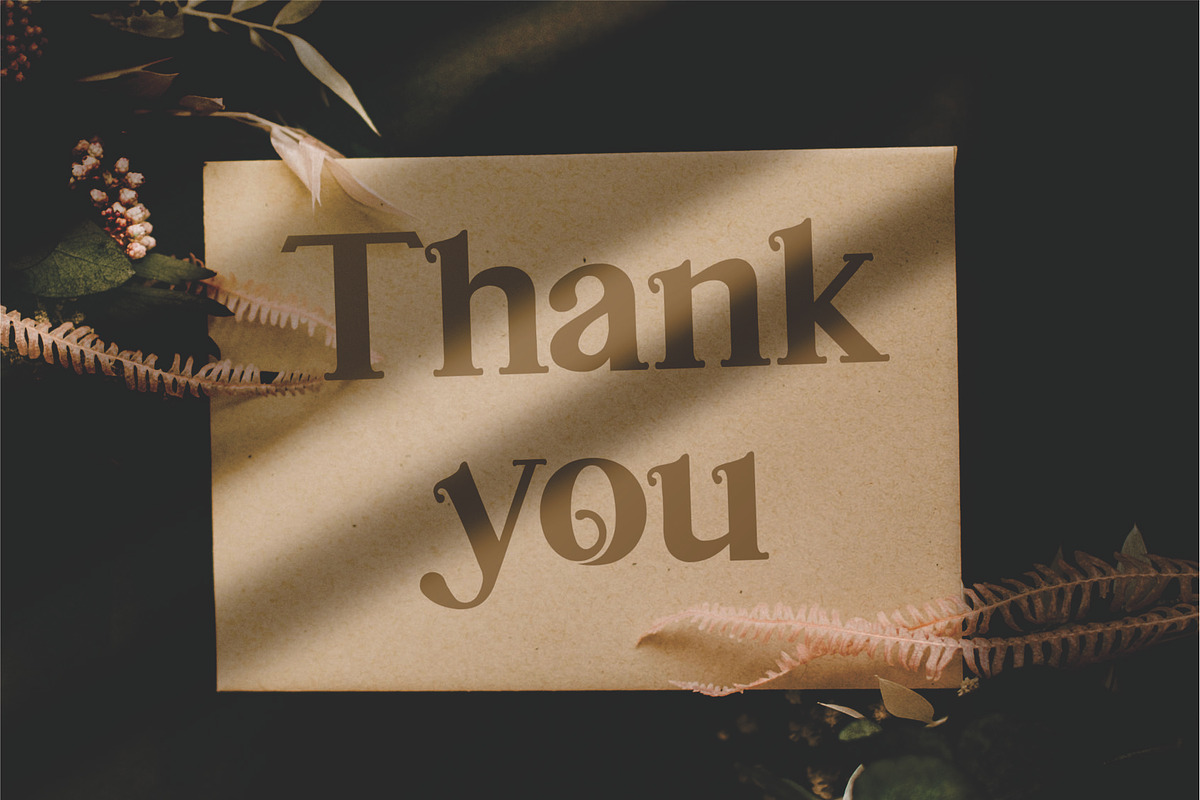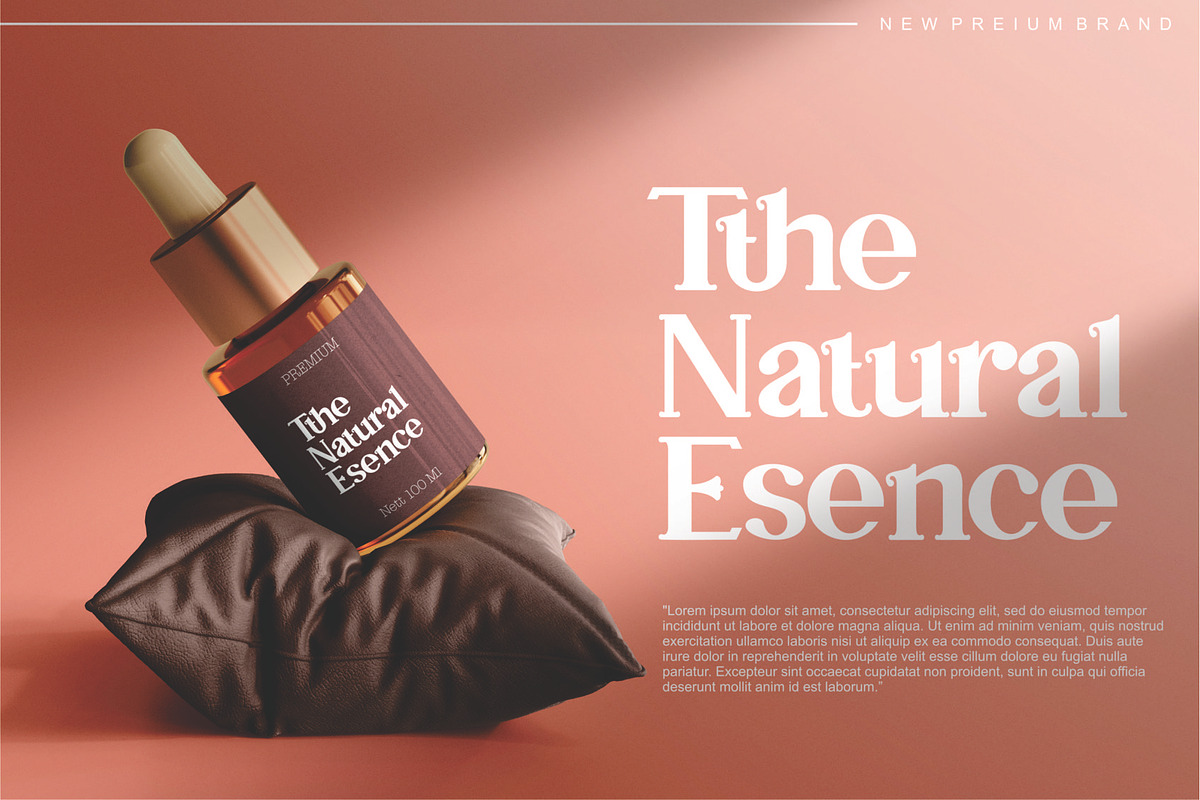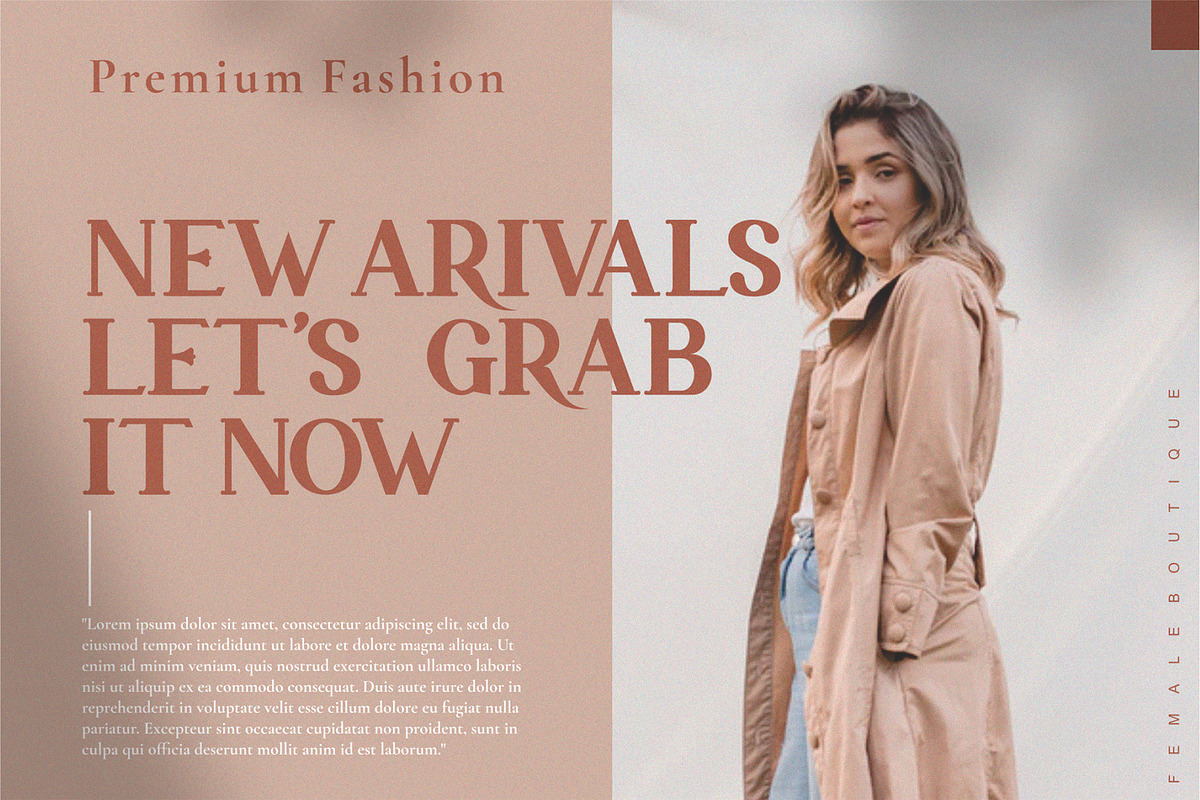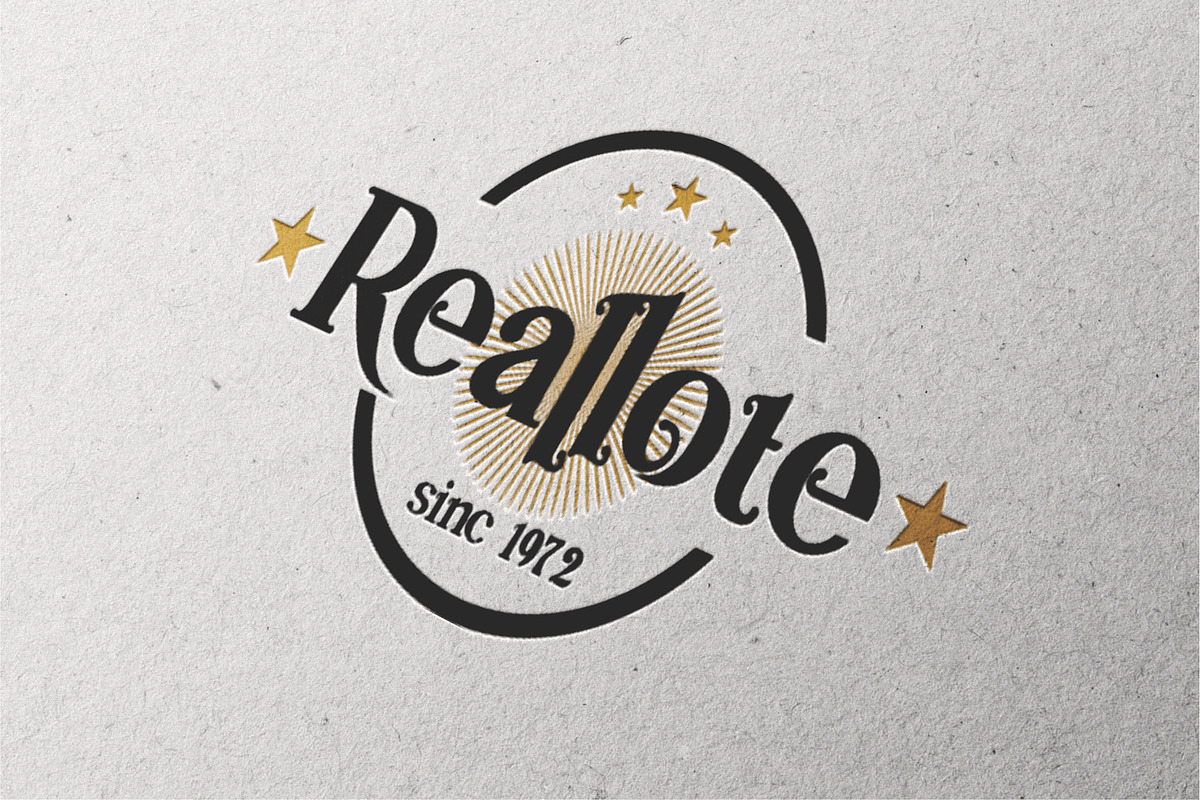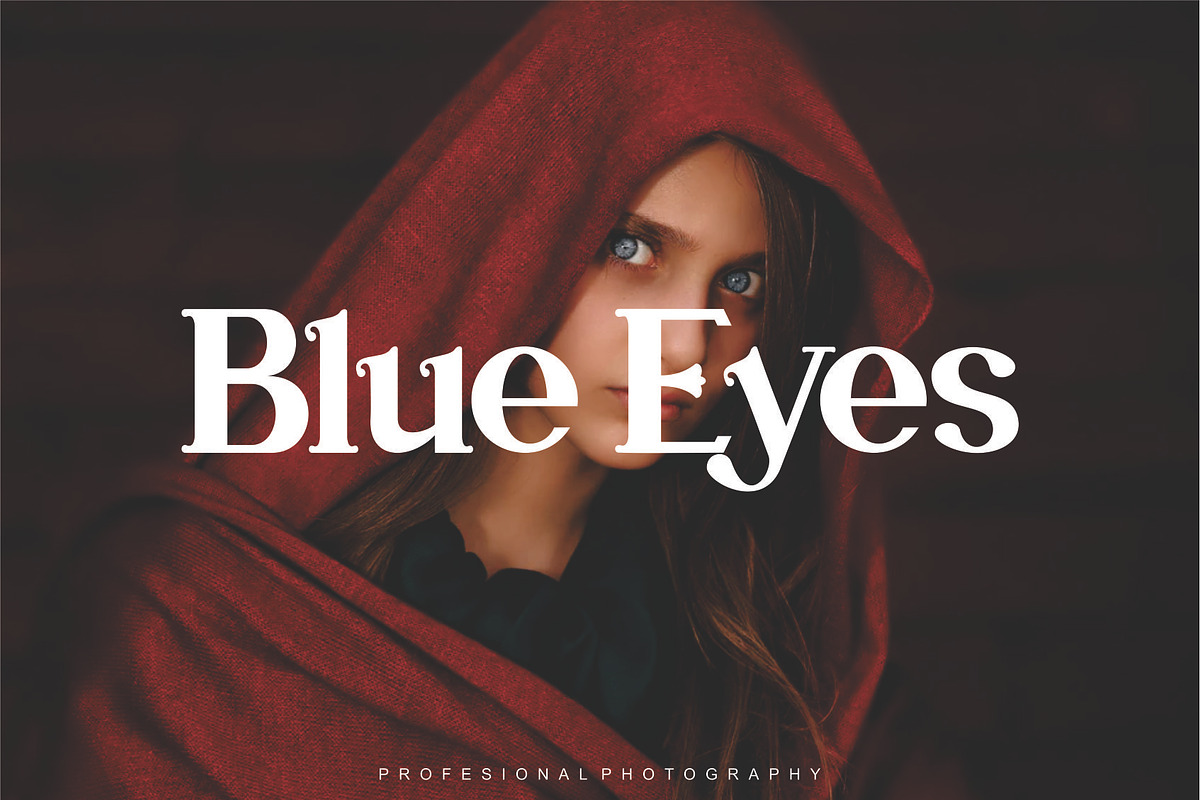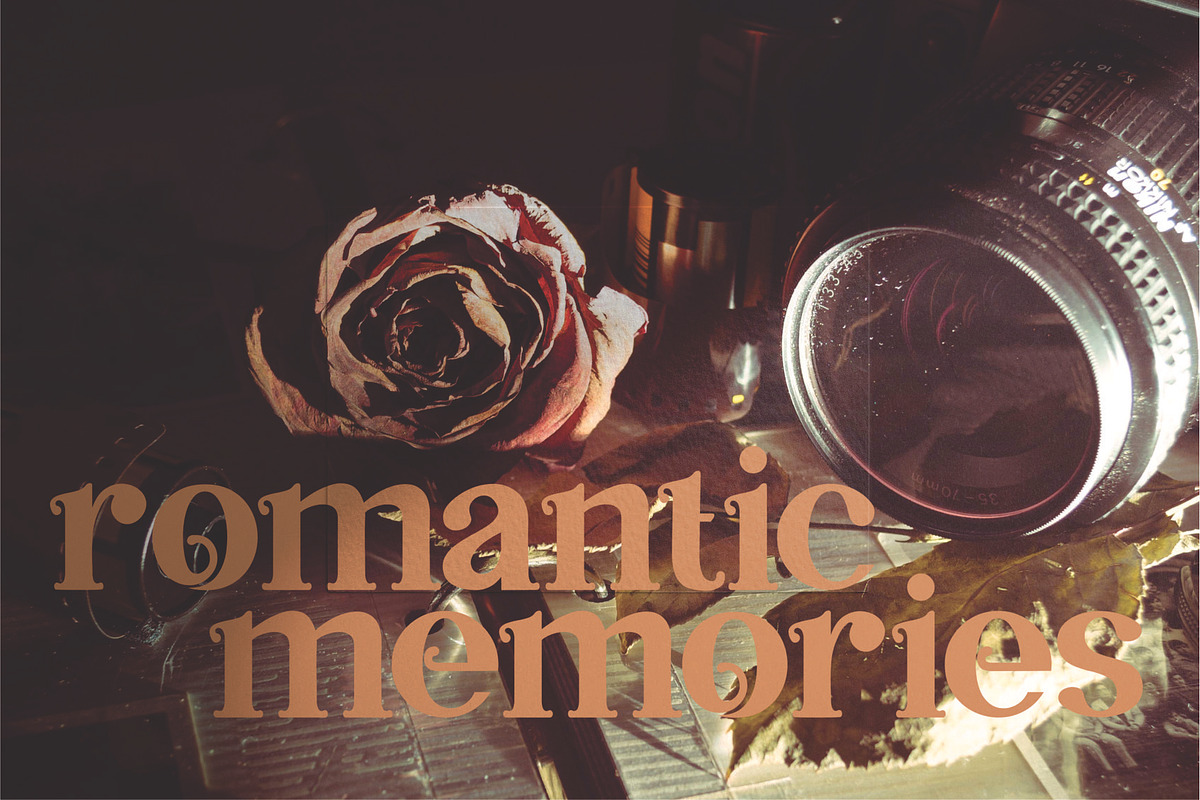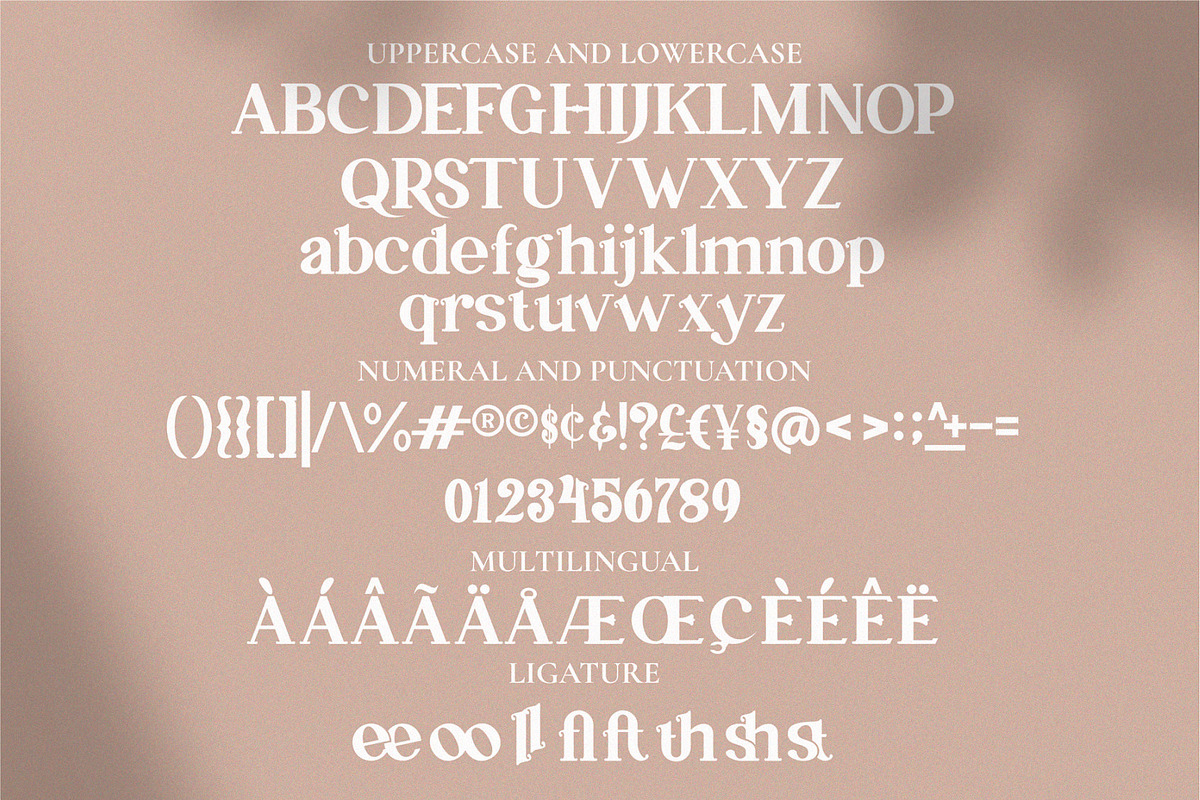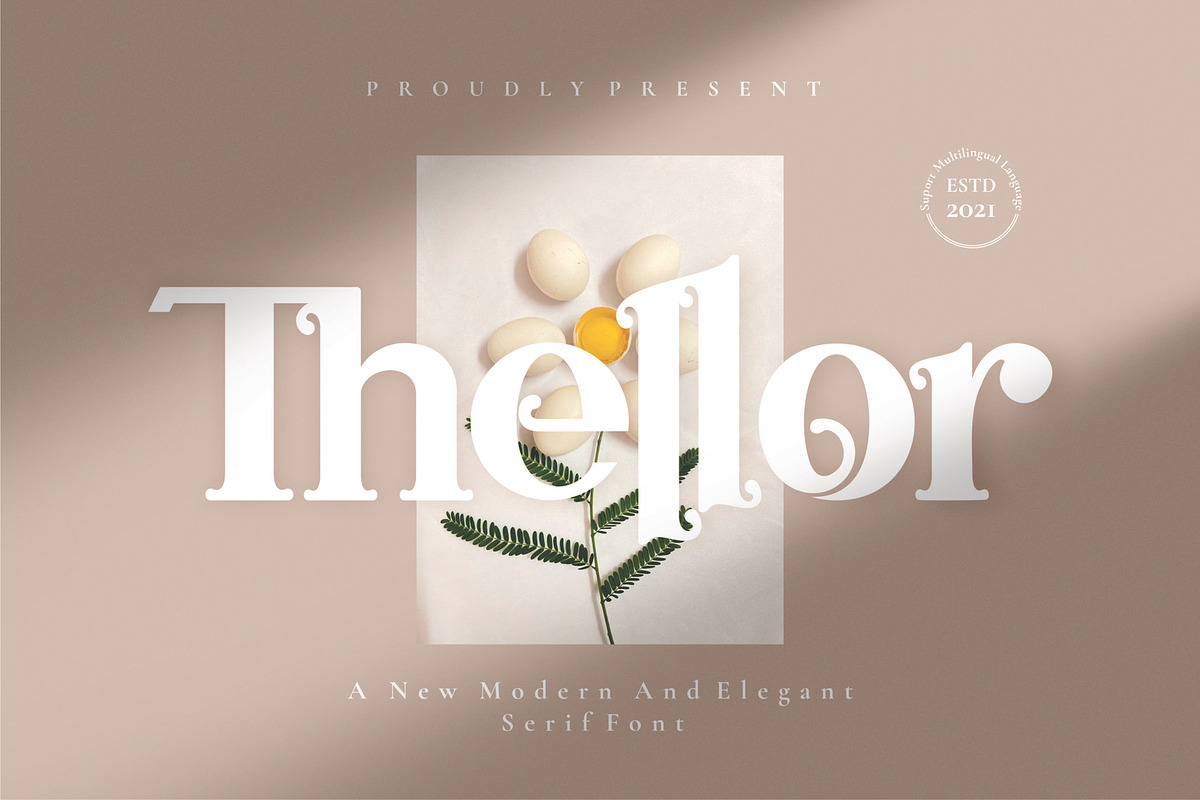
Thellor
introducing our new "Thellor" Modern Serif Font with Elegant style this is perfect for branding, logos, invitation, masterheads and more.
Features ;
- Number & Punctuation